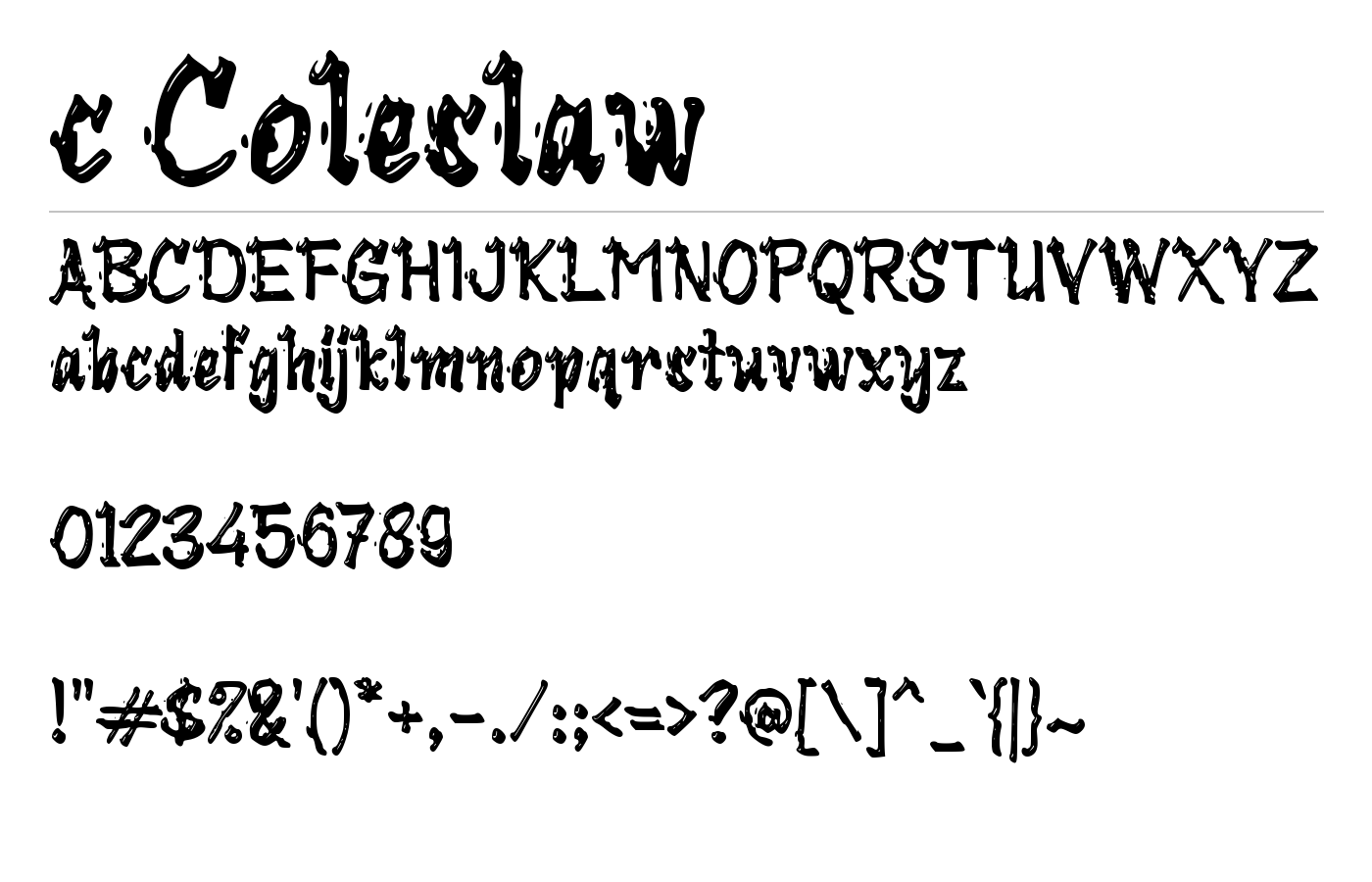
Coleslaw is a bold, decorative serif font with a playful, hand-drawn feel, characterized by rough, uneven edges and quirky, irregular letter shapes. Its distinctive style makes it ideal for creative projects that want to stand out, such as posters, logos, and headings, where a casual, artistic vibe is desired rather than long body text. This font brings an energetic and unique personality perfect for informal and fun branding.
c Coleslaw Font
About c Coleslaw Font